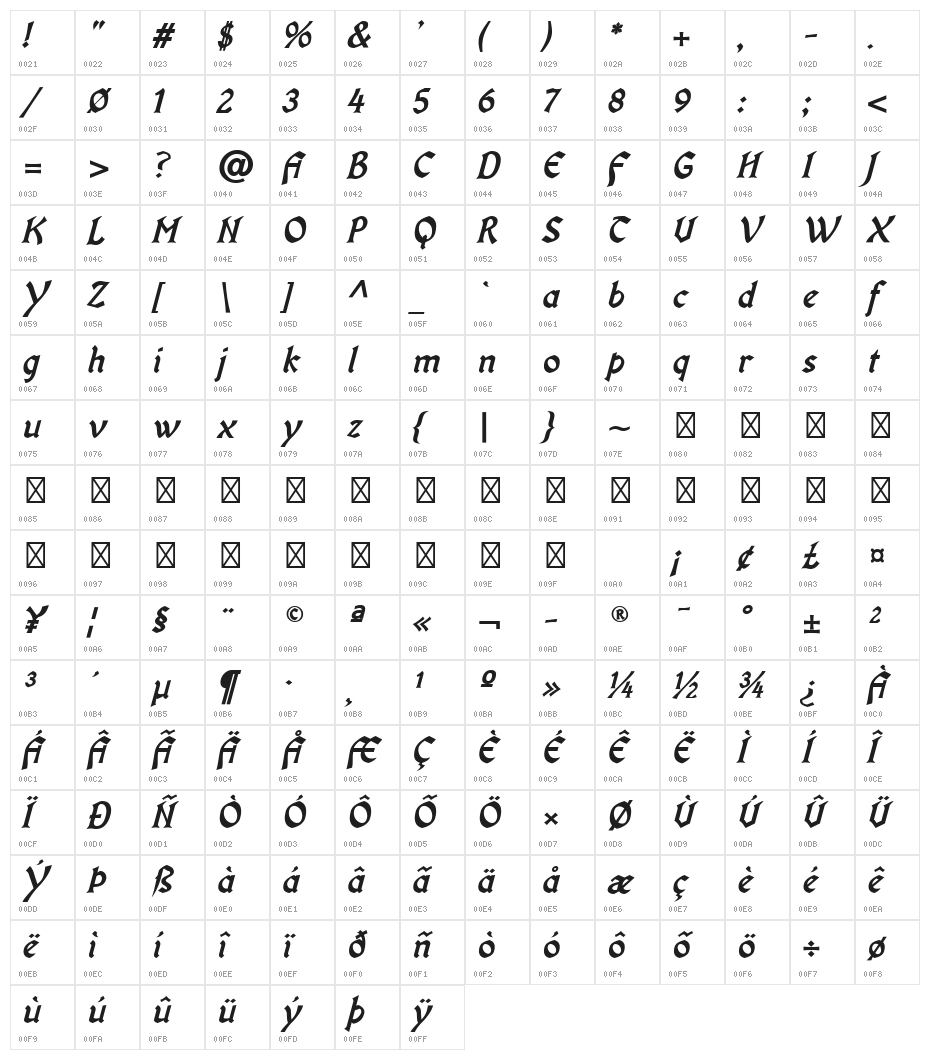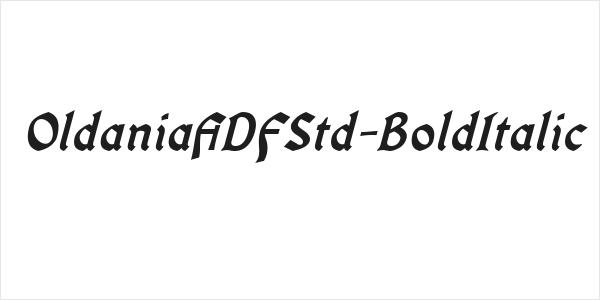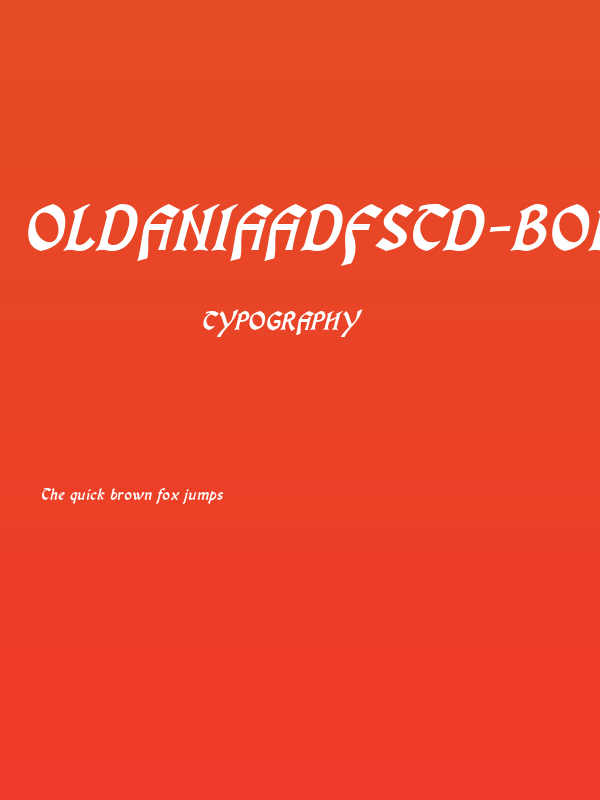
OldaniaADFStd-BoldItalic Font
This font features a bold and italicized style with a distinctively sharp and angular appearance. The characters exhibit a dynamic and flowing design, reminiscent of calligraphic influences. The uppercase letters are particularly striking with their pronounced curves and edges, while the lowercase letters maintain a consistent style that complements the overall aesthetic. The numerals are bold and clear, ensuring readability. Special characters are well-integrated, maintaining the font's cohesive look. This font's unique style makes it suitable for creative and expressive design projects.
Use CaseHeadlines, Logos, Artistic projects
Proposed ProjectsIdeal for branding, logos, headlines, and artistic projects that require a bold and expressive typeface.